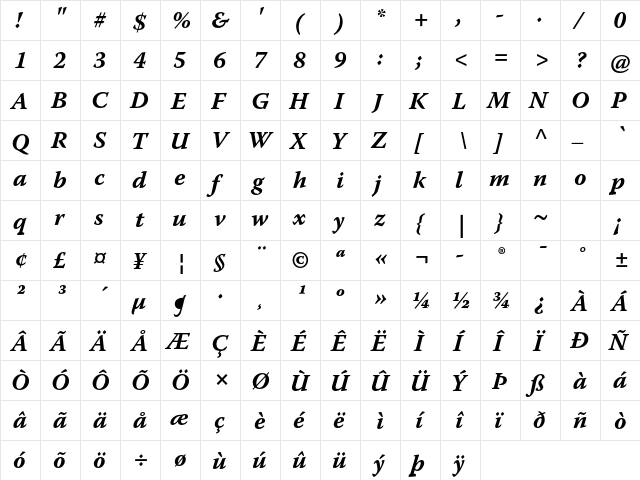
Warnock Pro Bold Italic Caption
| Designer | Robert Slimbach |
Design Context for Warnock Pro Typeface
Warnock Pro takes a measured approach to typography — its balanced proportions and neutral character make it a reliable workhorse for both digital and print work. Its italic angle brings a sense of urgency and motion to the letterforms. The heavy weight commands attention and anchors typographic hierarchies.